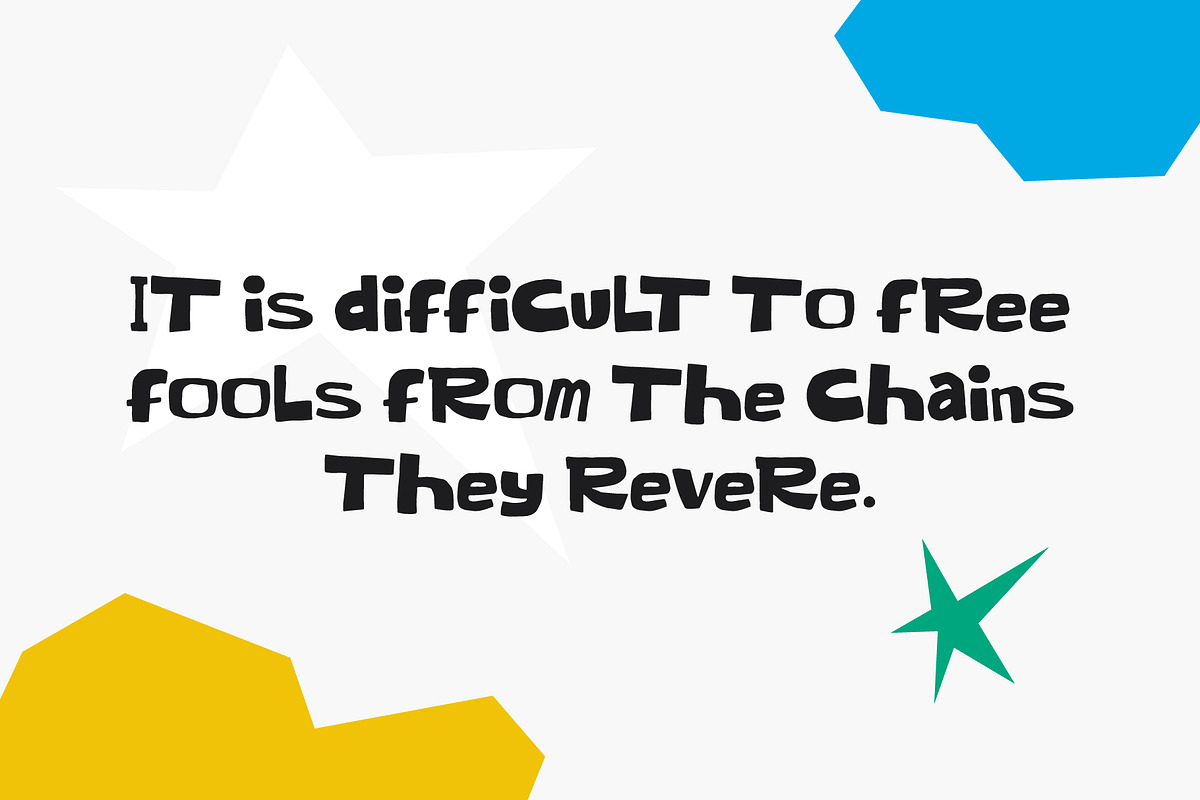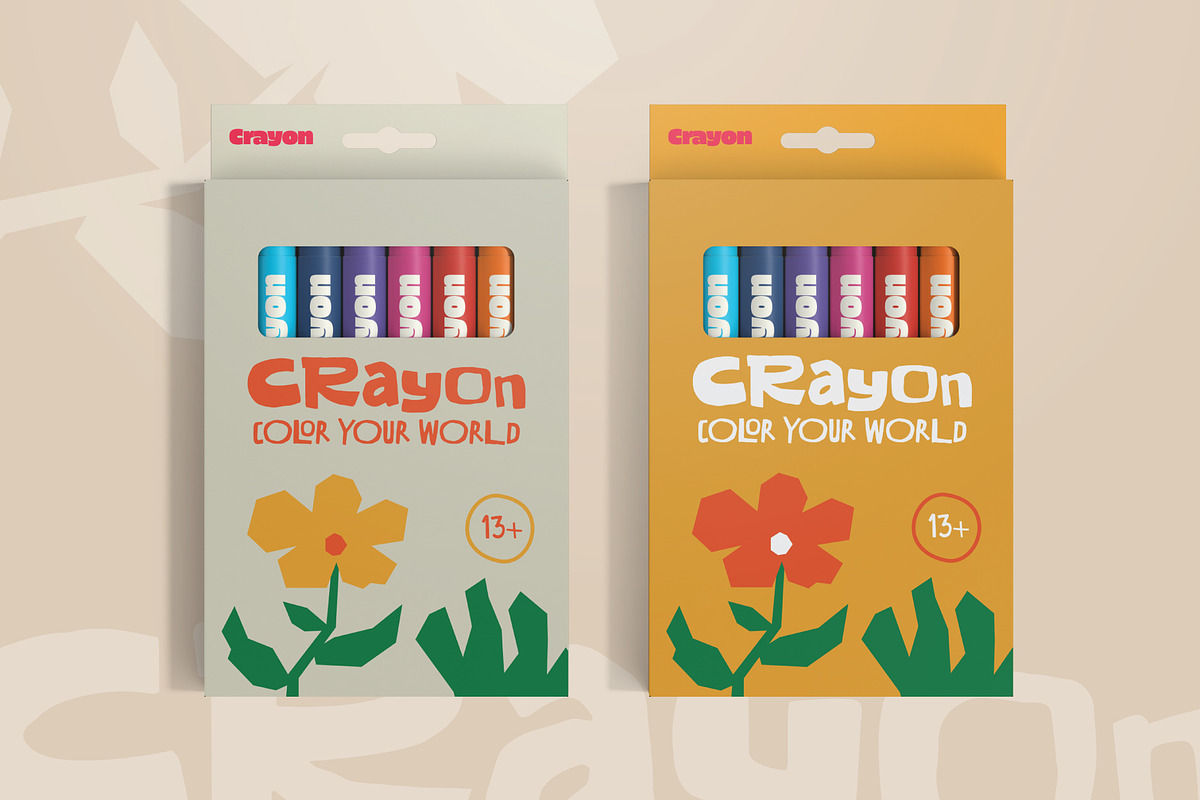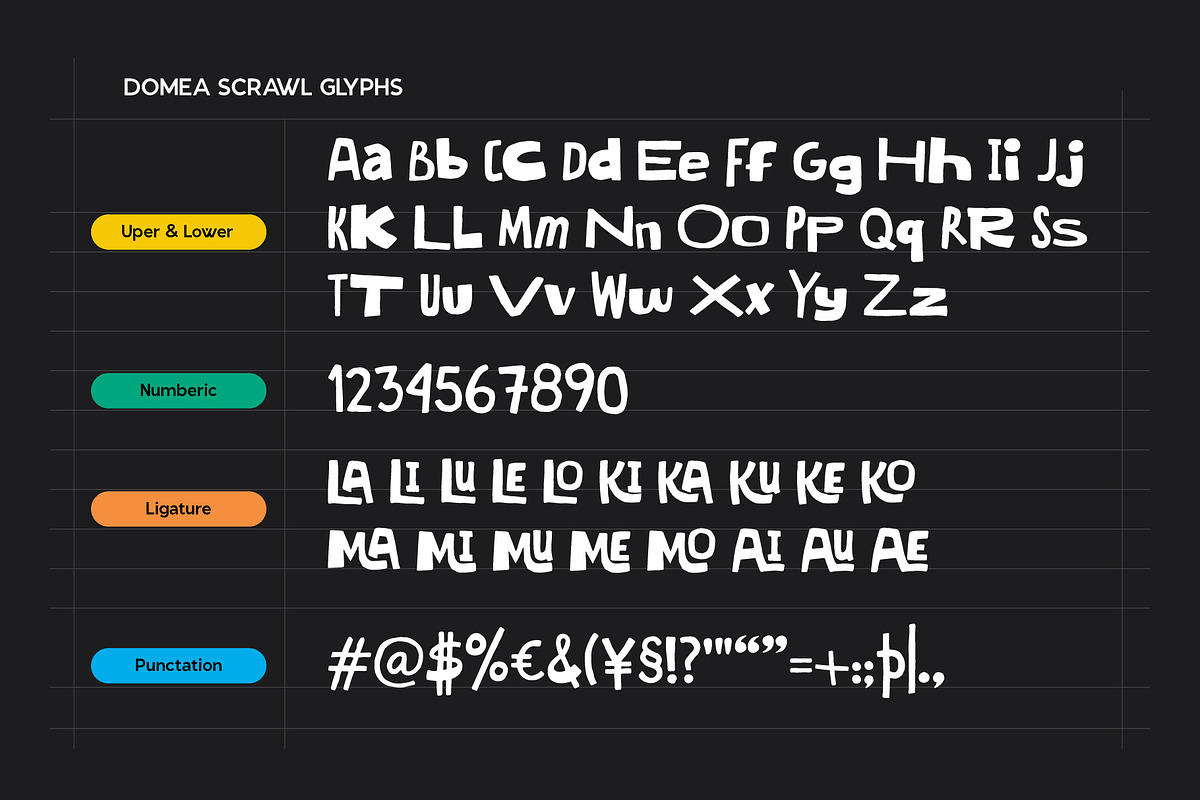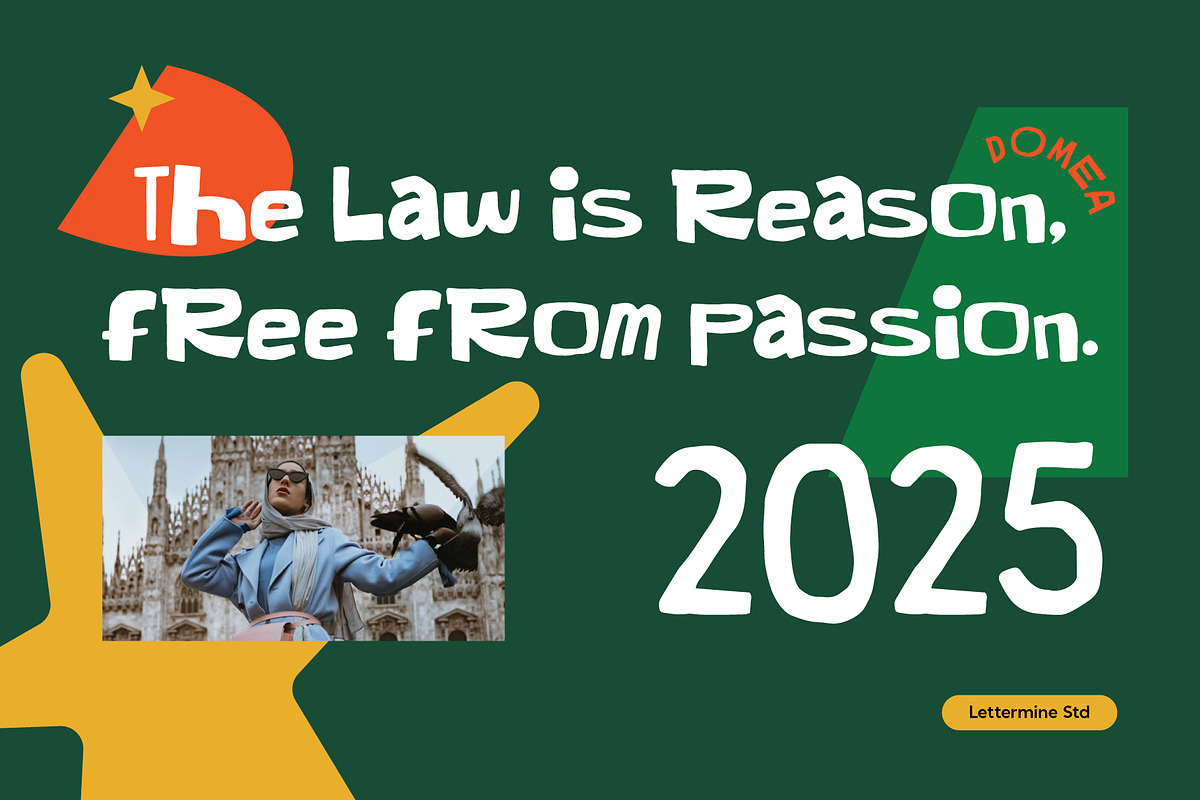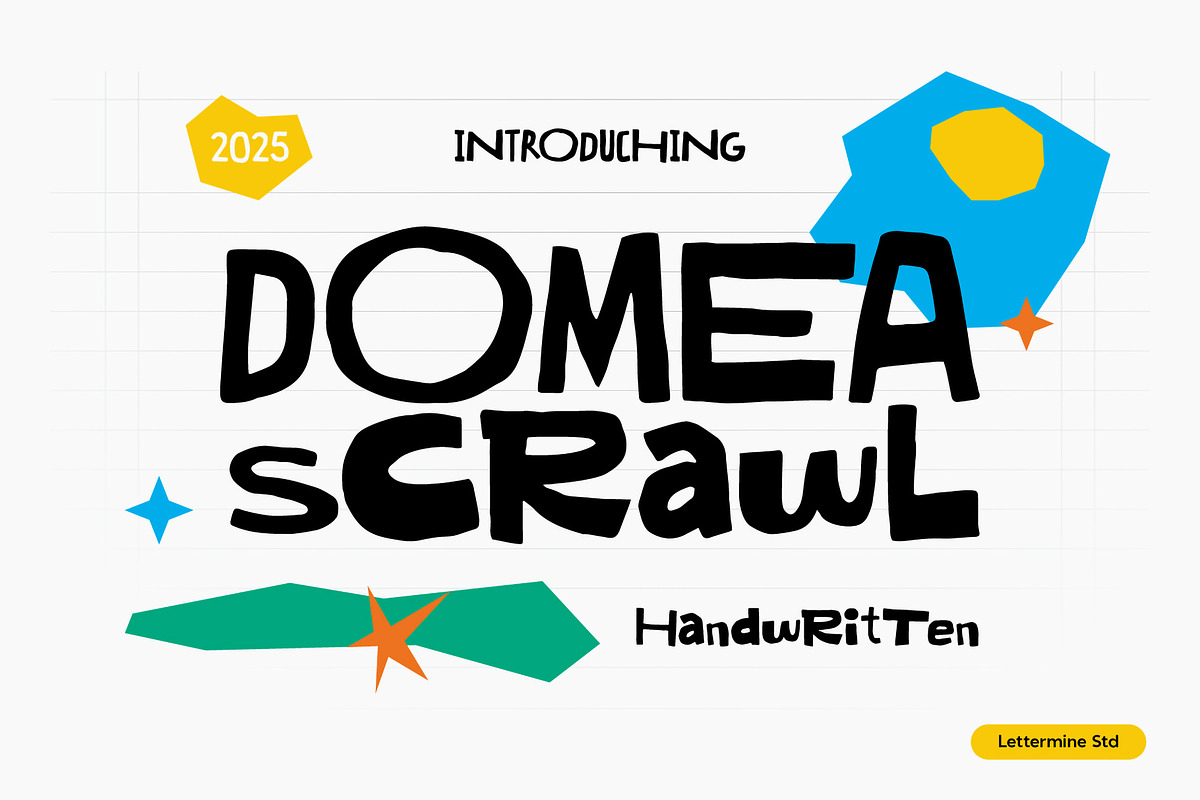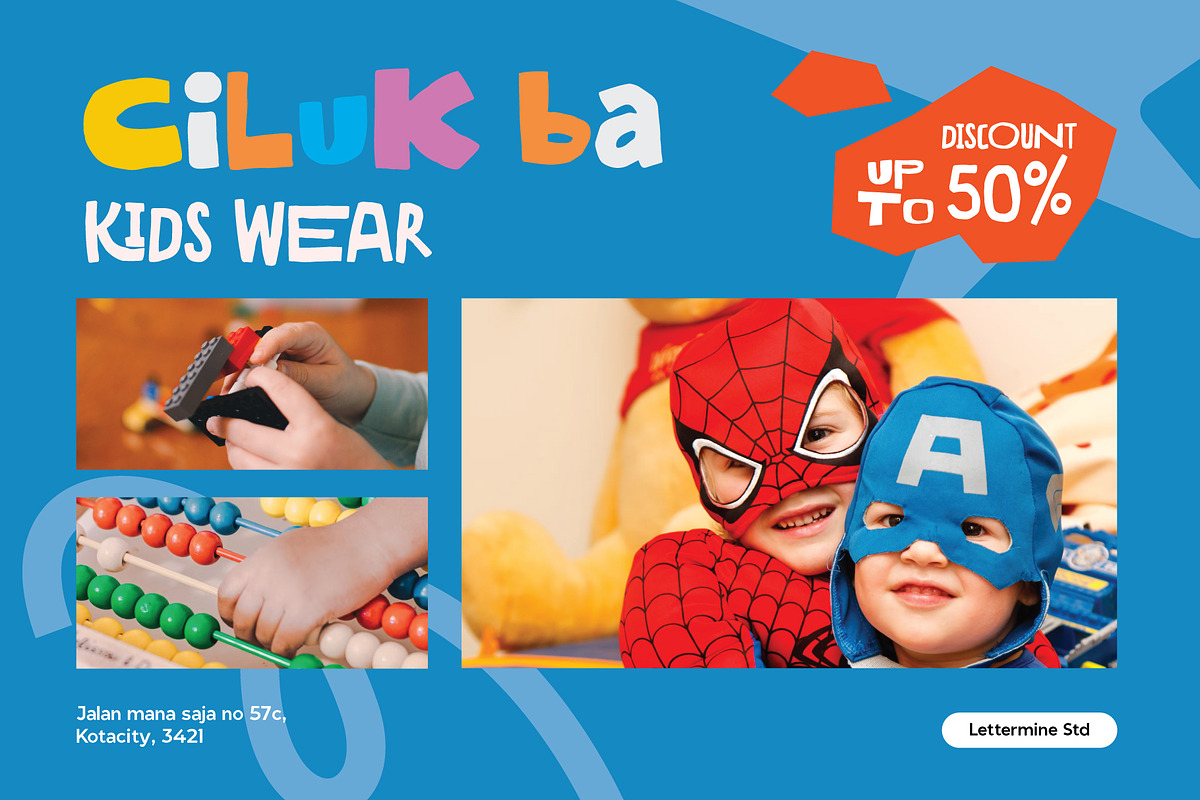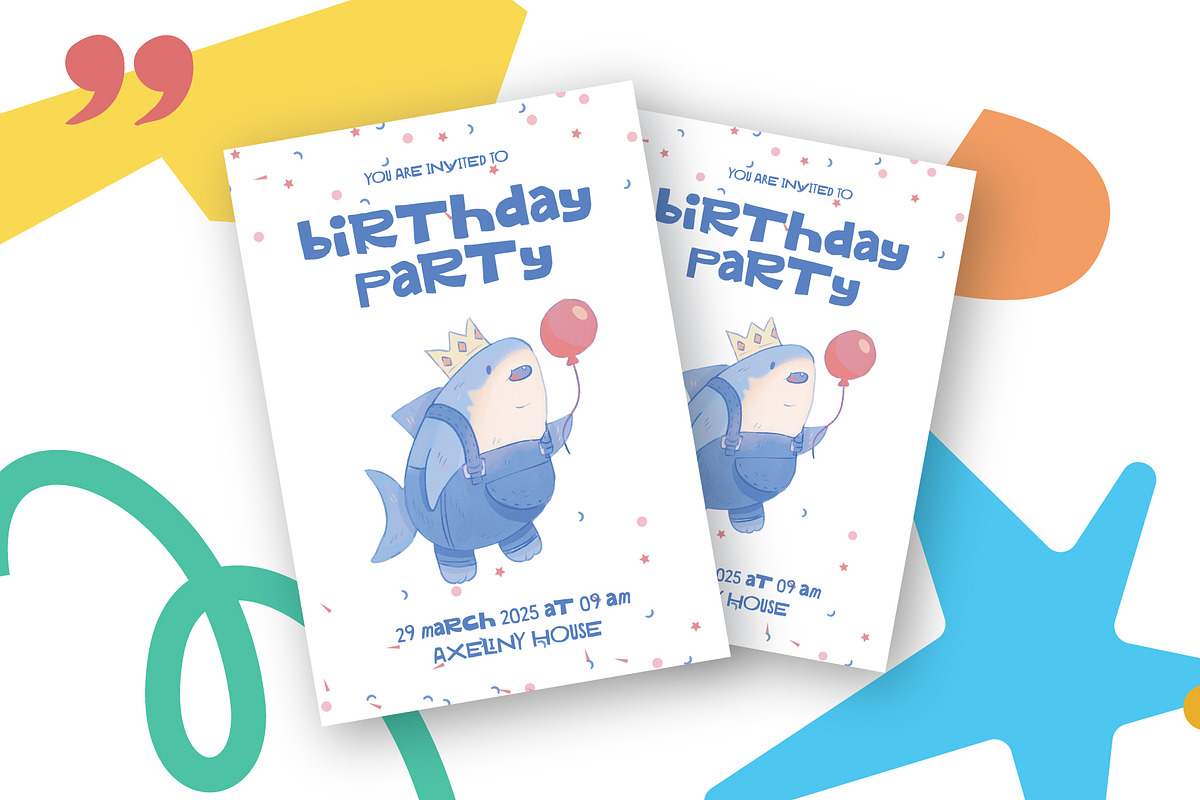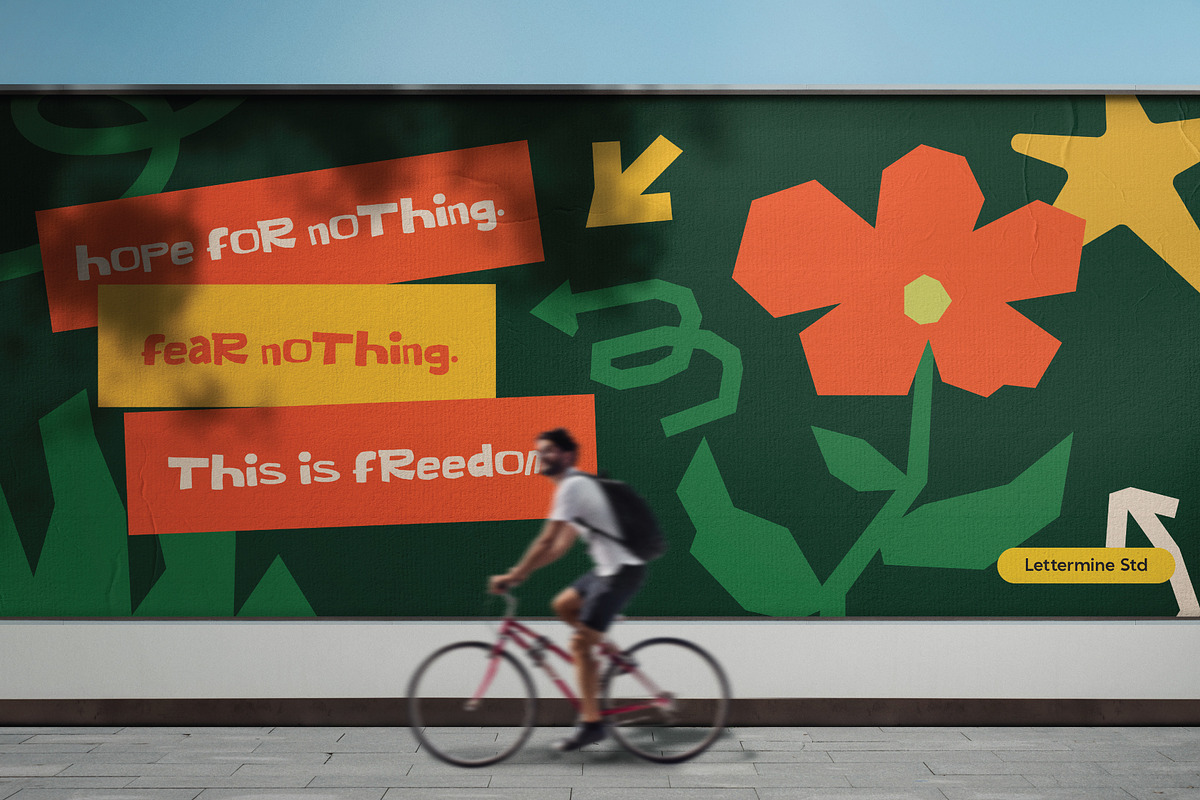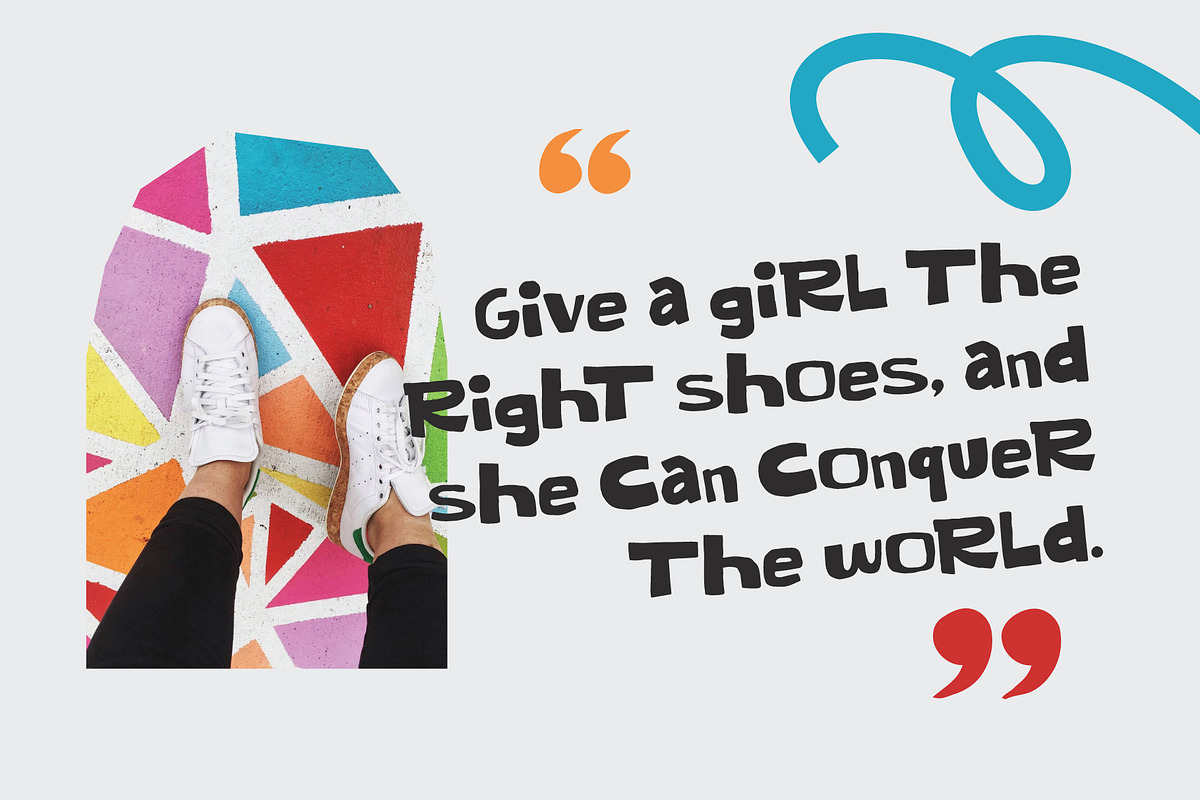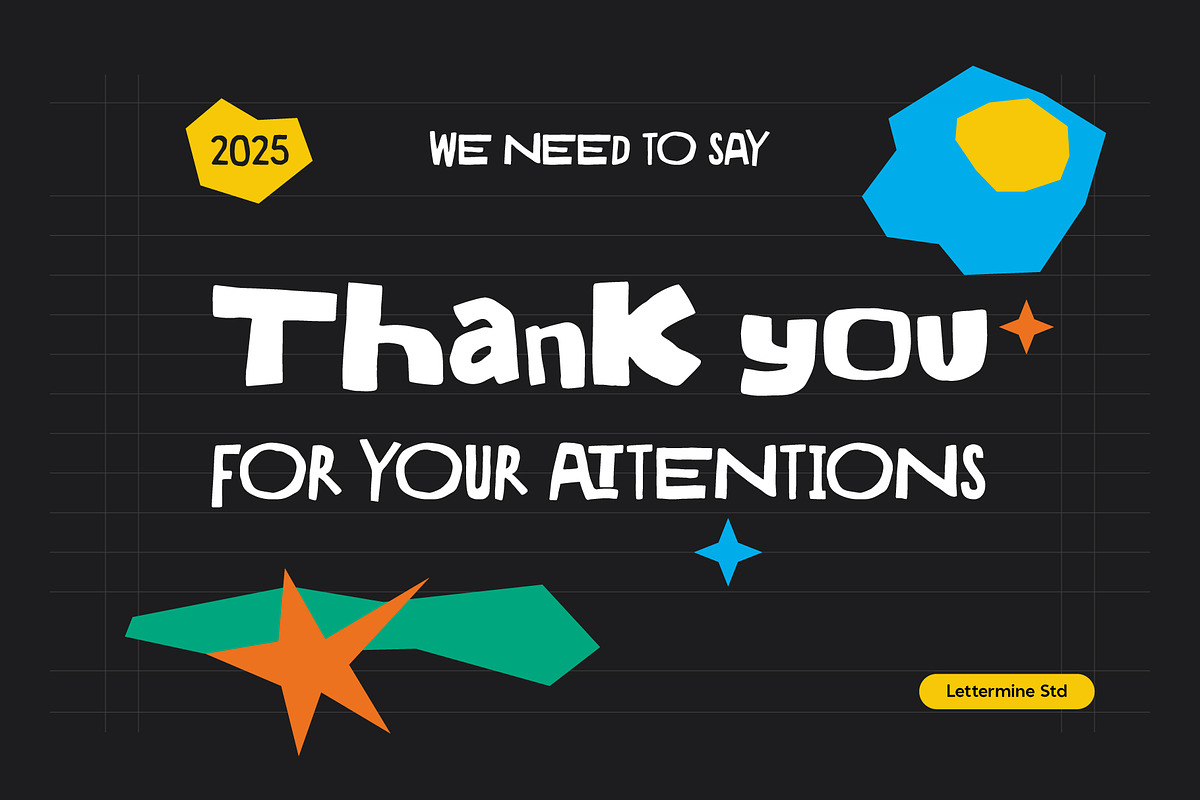
Domea Scrawl - Handwritten
Domea Scrawl – Handwritten
Domea Scrawl is a quirky handwritten font that brings a spontaneous, personal touch to your designs. With its casual letterforms and uneven strokes, this font captures the feel of natural handwriting—raw, authentic, and full of character. Perfect for notes, journals, quotes, or any design that seeks to feel human and heartfelt.
Ligature: Includes natural-looking ligatures that enhance the handwritten flow and keep the text visually engaging.
Punctuation: A complete punctuation set for functional and expressive design flexibility.
Multilingual Support: Covers a wide range of languages, making Domea Scrawl accessible and versatile for global use.
Add a personal, hand-crafted charm to your work with Domea Scrawl. Whether you’re designing for lifestyle brands, social media content, or storytelling visuals, this font adds warmth and individuality to every letter.